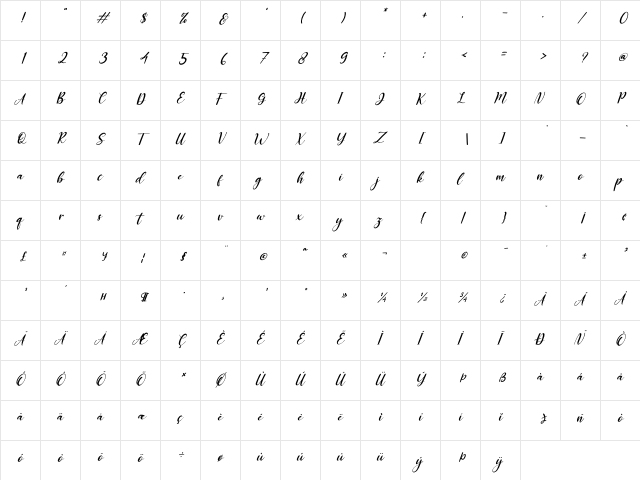
Miss Amalia Italic Regular
Design Context for Miss Amalia Italic Typeface
Miss Amalia Italic is a composed and adaptable typeface that performs quietly and consistently across a wide range of design contexts. The dynamic lean of this cut emphasises speed and emphasis in any layout.
Pro Tip: Use Miss Amalia Italic for emphasis, pull quotes, and subheadings where its slanted energy can add rhythm to the layout.